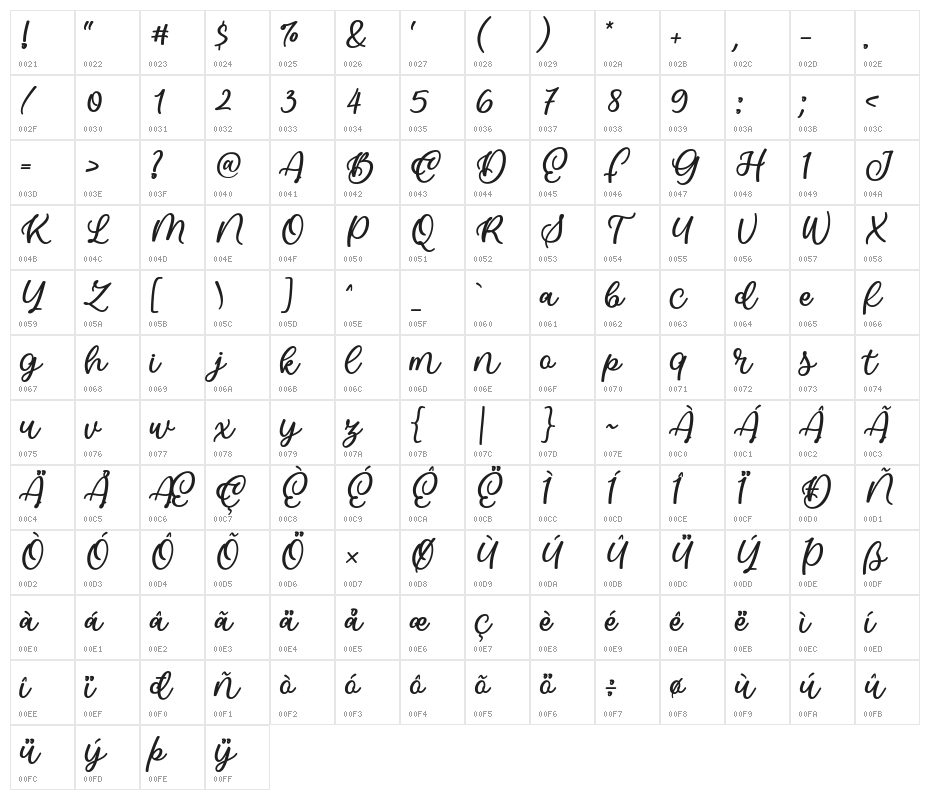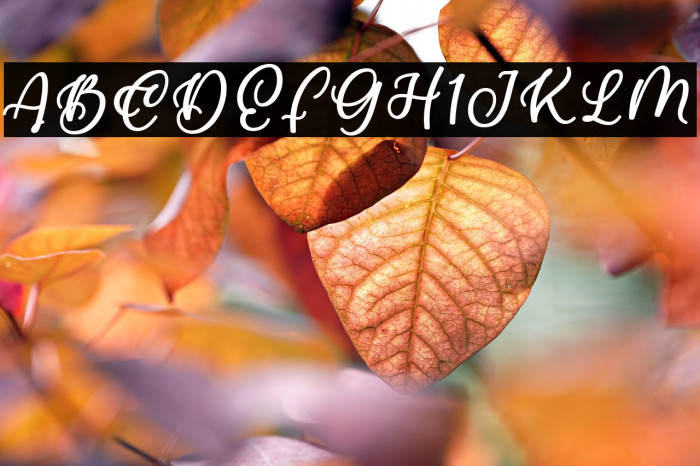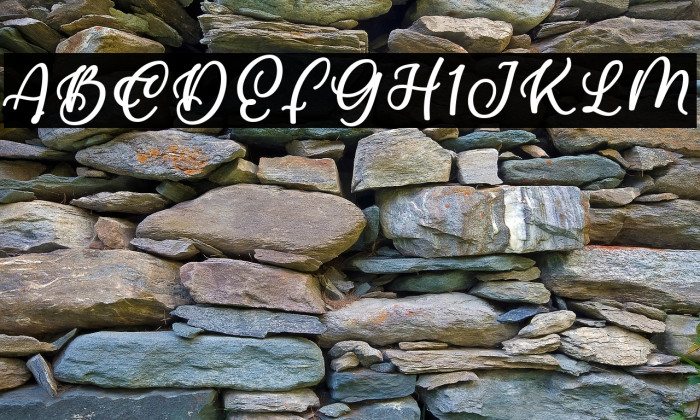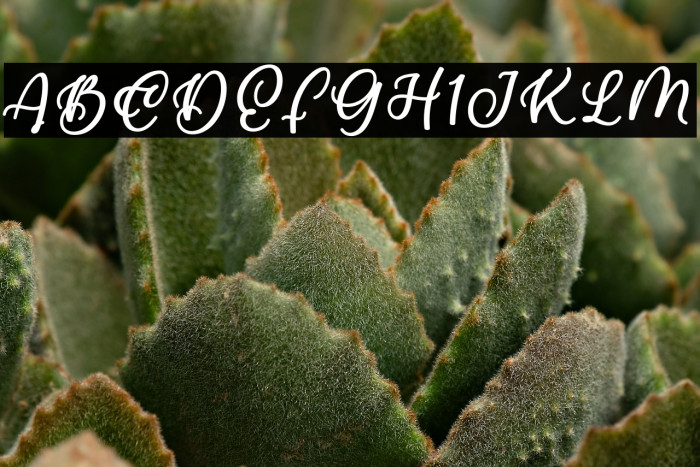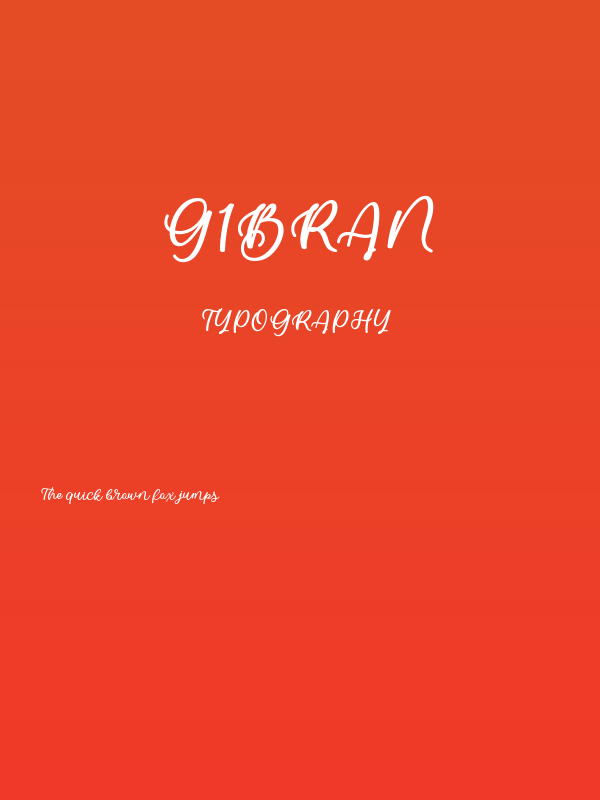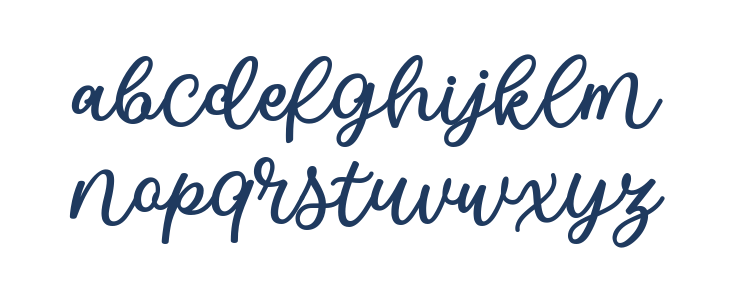
Gibran Font
Gibran Description
This font exudes a lively and expressive character, featuring a handwritten style that is both elegant and playful. The letters are connected in a flowing manner, reminiscent of cursive writing, which adds a personal touch to any text. The strokes are smooth and consistent, with a slight variation in thickness that gives the font a dynamic feel. The uppercase letters maintain a consistent height, while the lowercase letters have a slightly larger x-height, enhancing readability. The numerals and special characters are crafted with the same attention to detail, ensuring a cohesive look across all elements. This font is perfect for projects that require a personal, human touch, such as invitations, greeting cards, or branding materials.